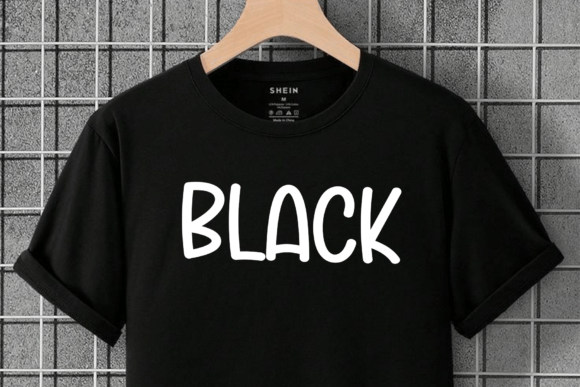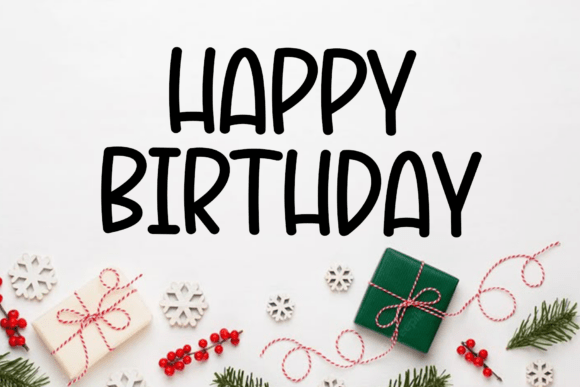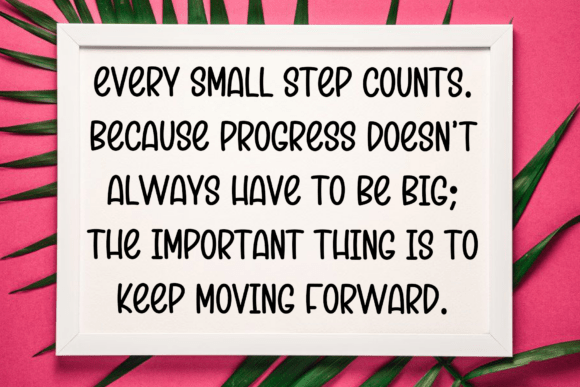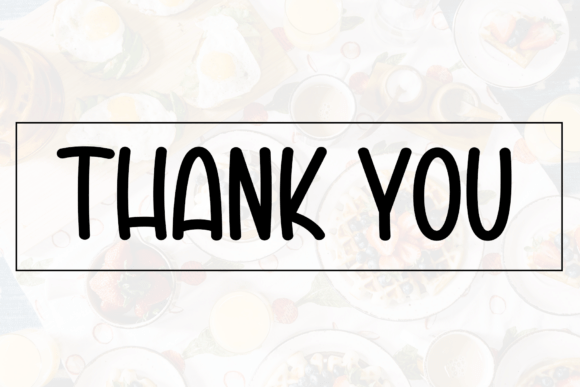
The Morning Inspiration Behind Breakfast Font
There’s nothing quite like the rush of creativity that comes with a fresh cup of coffee and a blank canvas. For designers, it’s a moment of pure possibility – where ideas can flow freely and the possibilities are endless. It’s in these moments that we discover the perfect font to bring our vision to life, and for many, that font is the Breakfast Font.
This smart and minimal sans-serif display font is designed to make a statement, with rounded corners and unique letterforms that give it a soft yet striking appearance. Whether you’re building a brand, creating social media content, or designing a logo, Breakfast Font strikes the perfect balance between professionalism and creativity, adding a modern edge to any project.
As a designer, having the right font in your arsenal can make all the difference in elevating your work and making it stand out. With Breakfast Font, you’ll have the versatility to tackle a wide range of projects with confidence and style, taking your designs from good to great.
Breakfast Font Key Features
- Font Family: Breakfast Font is a sans-serif font family designed for use in digital media.
- Size: The font family includes 6 weights, ranging from Light (100) to Bold (800), and an Italic version for each weight.
- Resolution: Optimized for use at resolutions up to 300 DPI, making it suitable for digital displays and print materials.
- Unique Characteristics: Breakfast Font features a clean, modern design with rounded corners and subtle flair on the terminals, giving it a friendly and approachable feel.
- Language Support: Supports a wide range of languages, including Latin, Cyrillic, and Greek scripts, making it a versatile choice for global applications.
Breakfast Font Review
I’ve had the chance to play around with Breakfast Font, and here’s my honest take on it.
- Unique Character: Breakfast Font’s quirky personality is a standout feature. It’s perfect for adding a dash of whimsy to your designs.
- Good Legibility: Despite its playful nature, the font is surprisingly easy to read, making it suitable for body text.
- High Customization Options: The font comes with a range of customization options, allowing you to fine-tune its look to fit your brand’s style.
- Limited Scalability: Breakfast Font can become quite pixelated when scaled up, which might be a concern for larger text or headings.
- Limited Font Variations: While the customization options are helpful, the font itself feels a bit one-dimensional, with limited variations to choose from.
Overall, Breakfast Font is a fun and quirky addition to any designer’s toolkit. While it has its limitations, its unique character and customization options make it a great choice for projects where you want to add a bit of personality.
The Breakfast Font is ideal for:
- Creative branding and marketing materials.
- Food and beverage packaging design.
- Restaurant and cafe menus.
- Social media graphics and ads.